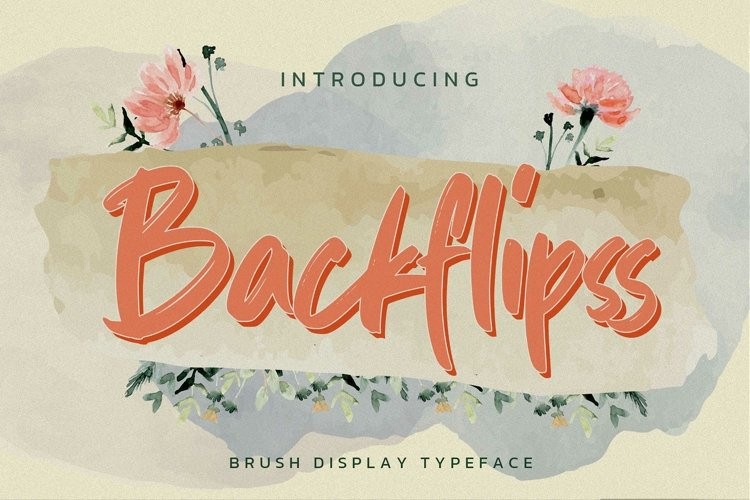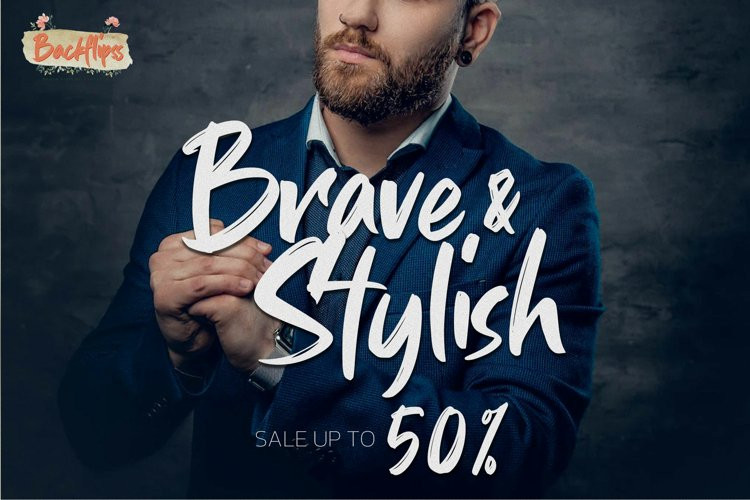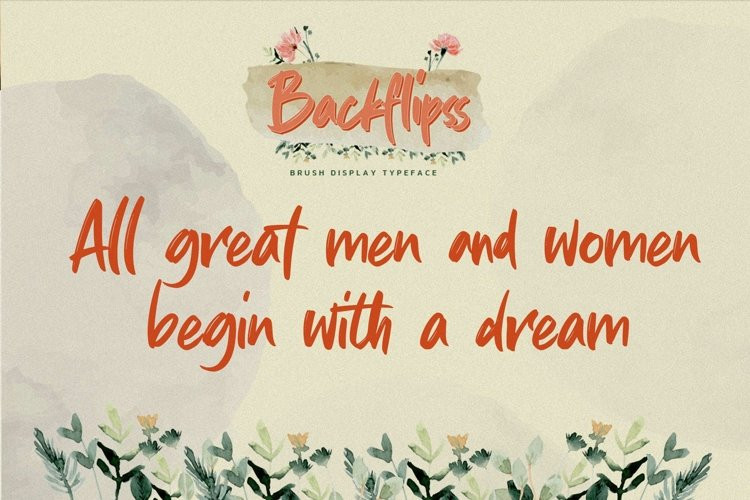
Backflipss Font
Backflipss FontHello Everyone, introduce our new product Backflipss is Brush Display Typeface with a natural feel. This handmade font will make your design has a beautiful natural touch for each details. It is perfect for any design project as Invitation,logo, book cover, craft or any design purposes.
Backflipss is Inspired by Logo style and combination with Unique Craft style. that will fulfill your design needs for quotes,sporty theme, logotype, wordmark, etc. This has many opentype features and support multi language.
You can activate 16 Ligatures glyphs and 60 Alternates glyphs OpenType panel.